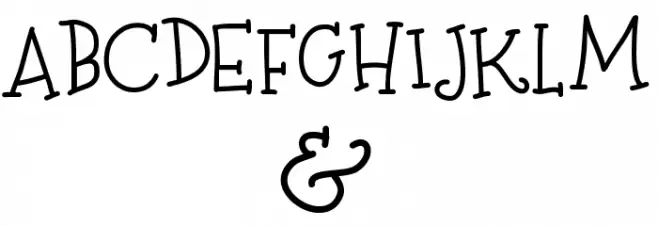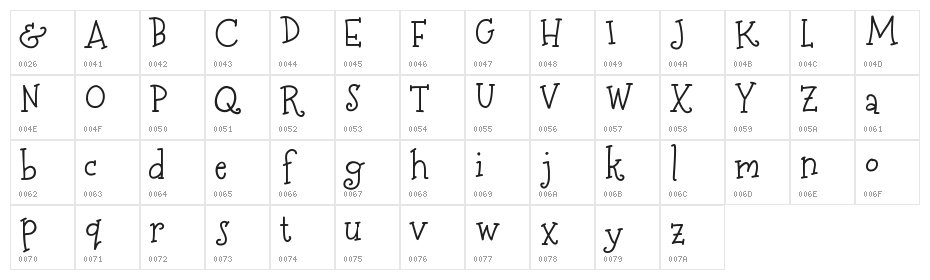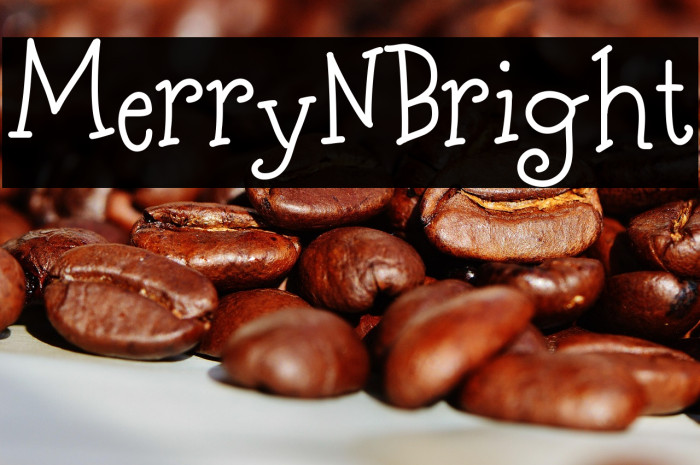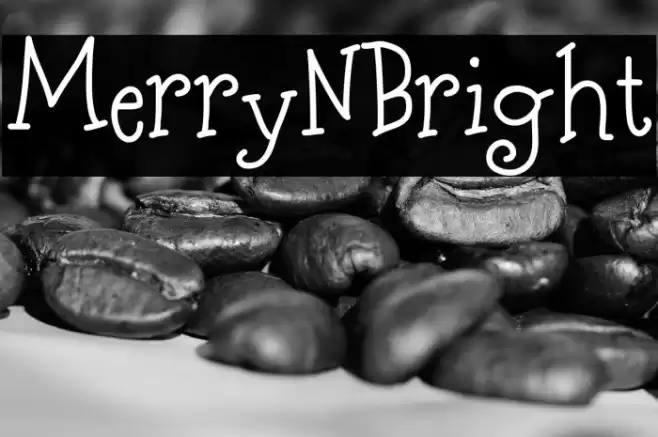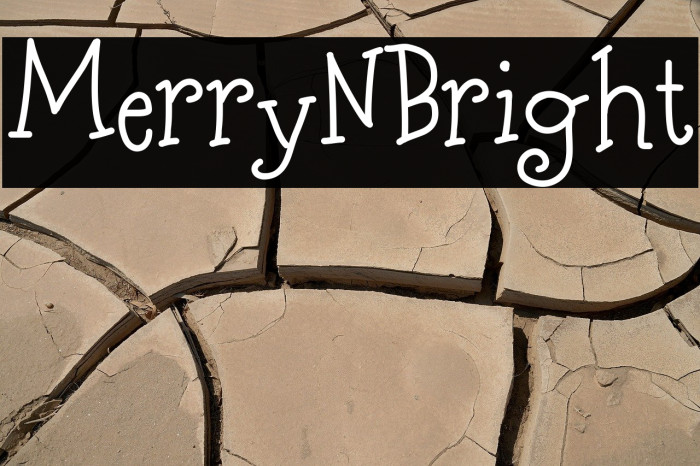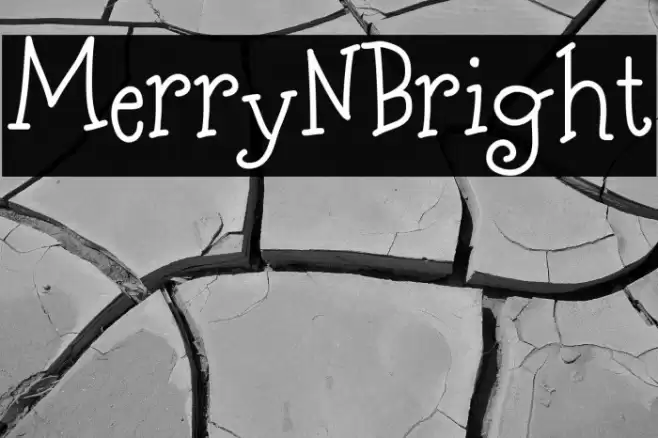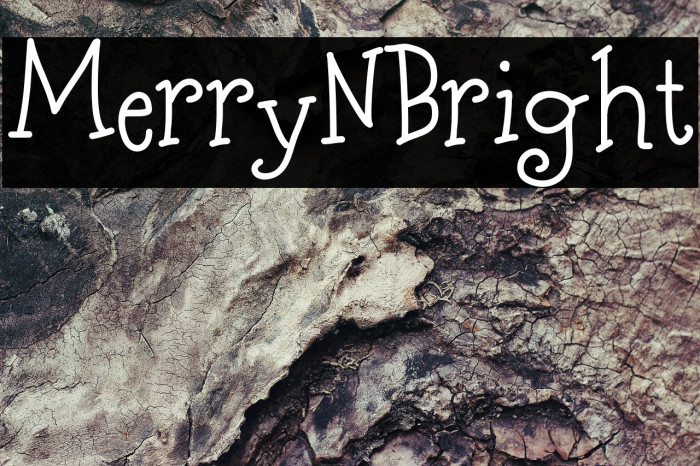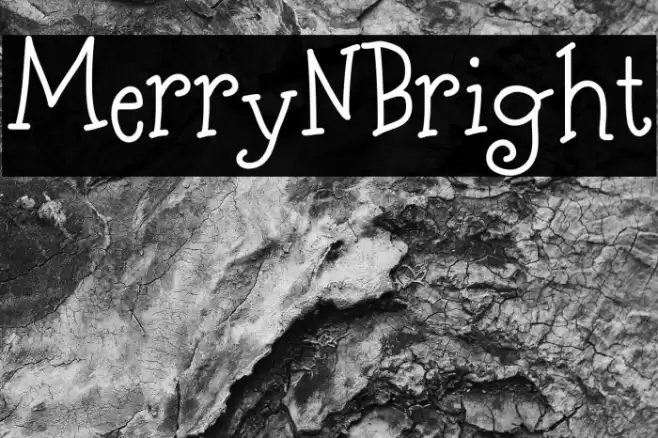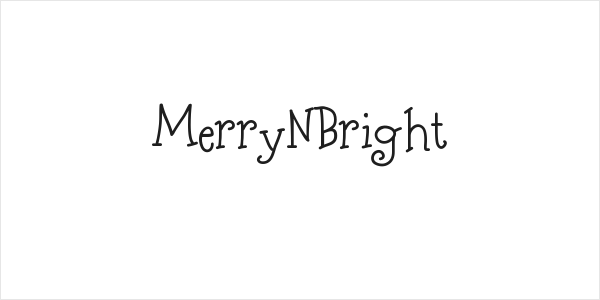
MerryNBright Font
MerryNBright Description
This whimsical and playful font features a hand-drawn style with a touch of elegance. The characters are slightly irregular, giving a charming and informal appearance. The uppercase letters are tall and slender, while the lowercase letters maintain a consistent flow with subtle curls and loops. The font includes a full set of uppercase and lowercase letters, numbers, and a selection of special characters. Its unique style is perfect for adding a personal touch to any design, making it ideal for creative projects that require a fun and lively aesthetic.
| Proposed Projects | Ideal for holiday cards, children's book covers, playful branding, and festive invitations. |